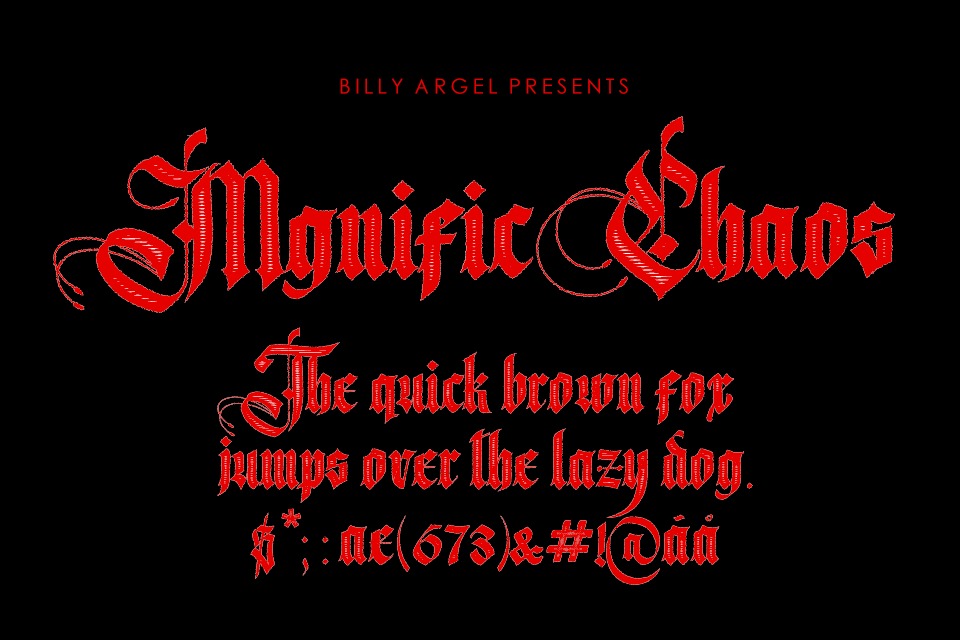
Magnific Caos Font
Magnific Caos Blackletter Font
This is a victorian styled and distinct blackletter font. Fall for its ravishing style and use it to create gorgeous wedding invitations, beautiful stationary art, eye-catching social media posts, and much more!